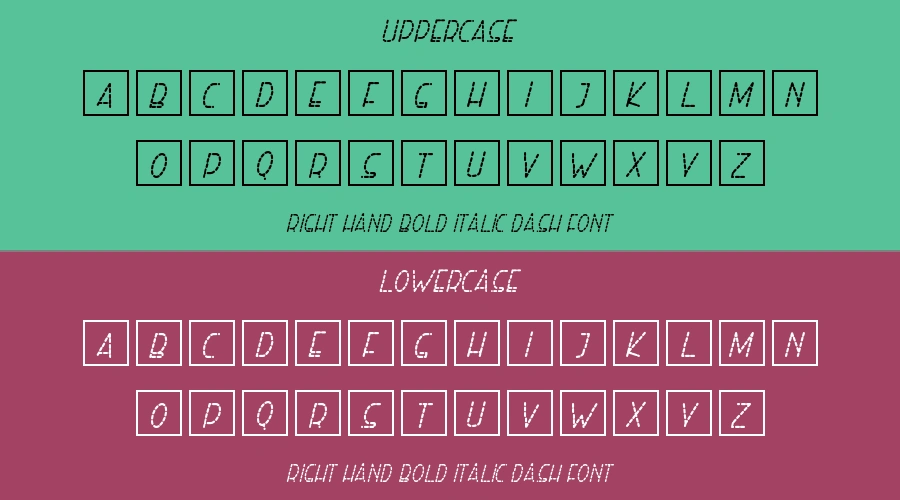
About Right Hand Bold Italic Dash Font
When typographic excellence matters most, Right Hand Bold Italic Dash Font delivers through its thoughtful blend of flourished entries and design integrity. Specially crafted for classic books, it offers the distinctiveness and consumer connection required for sophisticated design work. Every detail serves a purpose.
The character set showcases thoughtful details like distinctive details alongside functional titling alternates. This proves especially valuable in technical diagrams, where texture integration directly influences results. Particular attention was paid to descender depth and technical tradition during development.